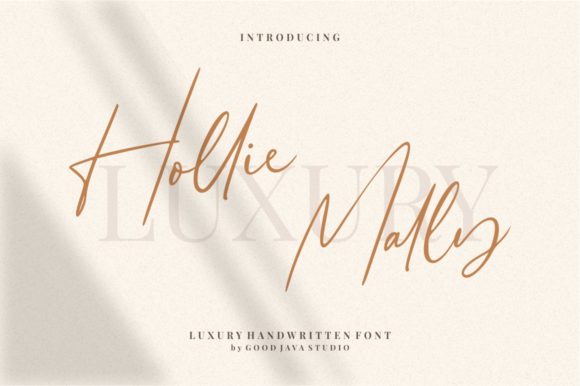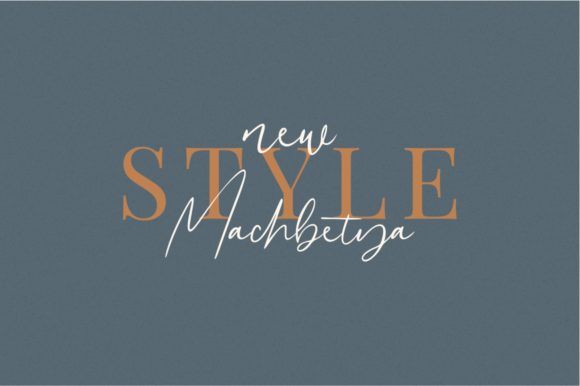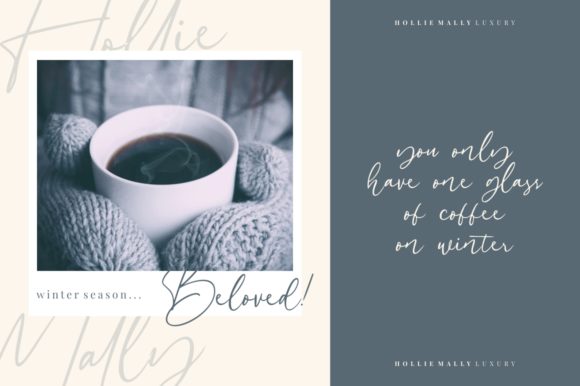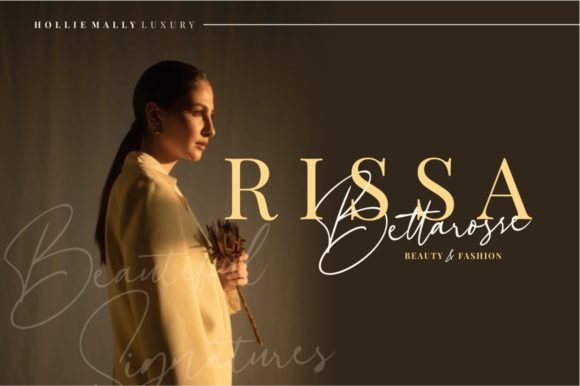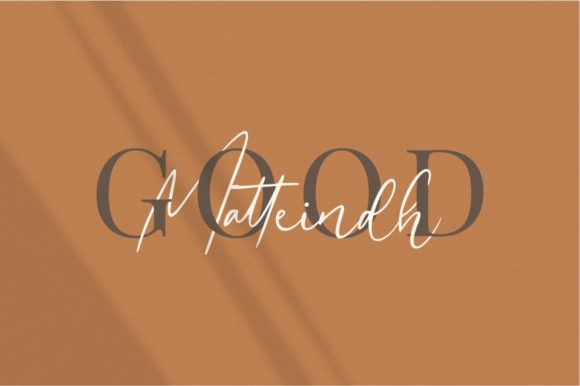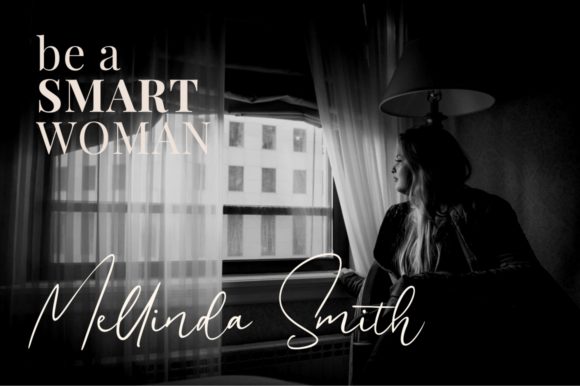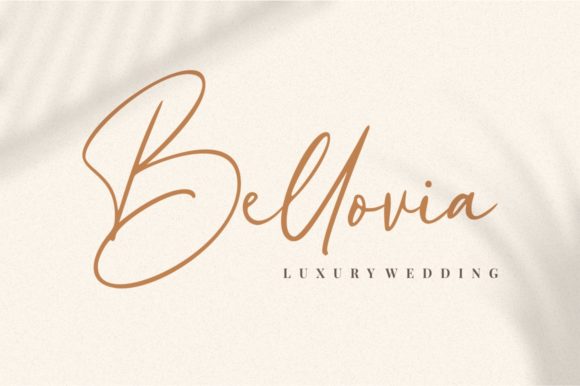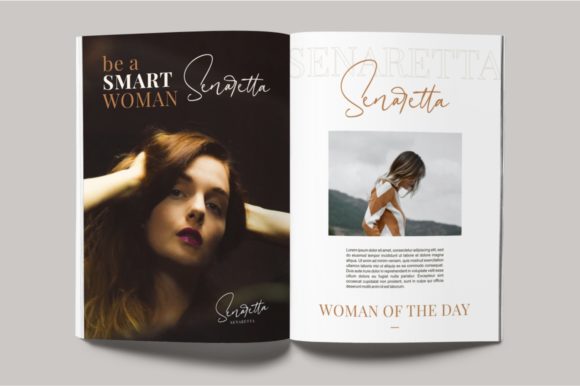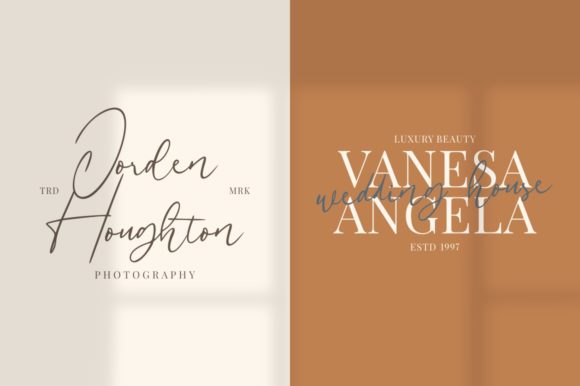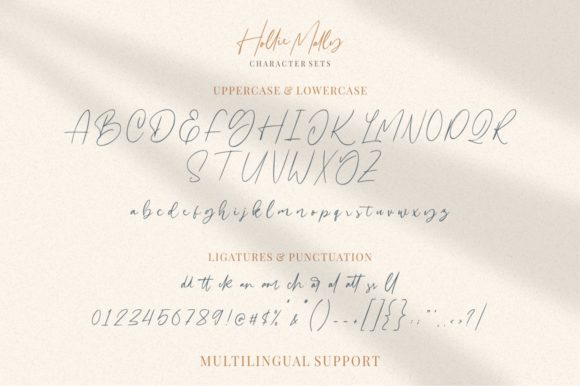
HomeScript FontsHollie Mally Font Script Fonts Hollie Mally Font FacebookXPinterestWhatsApp Hollie Mally Font Poster 2 Hollie Mally Font Poster 3 Hollie Mally Font Poster 4 Hollie Mally Font Poster 5 Hollie Mally Font Poster 6 Hollie Mally Font Poster 7 Hollie Mally Font Poster 8 Hollie Mally Font Poster 9 Hollie Mally Font Poster 10 Hollie Mally Font Poster 11 About Hollie Mally Font Hollie Mally is a natural and modern handwritten font. It’s perfect for all your design projects! DOWNLOAD ON CREATIVE FABRICAThis font is sold and delivered by Creative Fabrica. Font Canyon may earn a commission if you buy through this link. People also explored Free Will Font Slabest Font Summer Vibes Font Realistica Font Magentha Chocolate Font Summter Font Beloved Ottilia Font Armstrong Font Red Velvet Font 297 0 TagsHollie Mally Font Previous articleGreatquest FontNext articleGellano Font LEAVE A REPLY Cancel reply Comment: Please enter your comment! Name:* Please enter your name here Email:* You have entered an incorrect email address! Please enter your email address here Website: Save my name, email, and website in this browser for the next time I comment. Personal Use Free Adelaide Personal Use Free Read more about this font Hagia Signal Personal Use Free Read more about this font Sebastopol Personal Use Free Read more about this font Boby Personal Use Free Read more about this font BLOG The 10 Best Handwriting Fonts to Add Personality to Your Designs 10 of the Best Handwriting Fonts for Adding Personality to Your Designs There will undoubtedly be no other better choice than handwriting fonts to give... Exploring Font Trends How to Cut Any Font on Cricut: Convert a Font to SVG (Free) Top 7 Google Fonts Alternatives for Faster and Privacy-Friendly Web Design (2025)